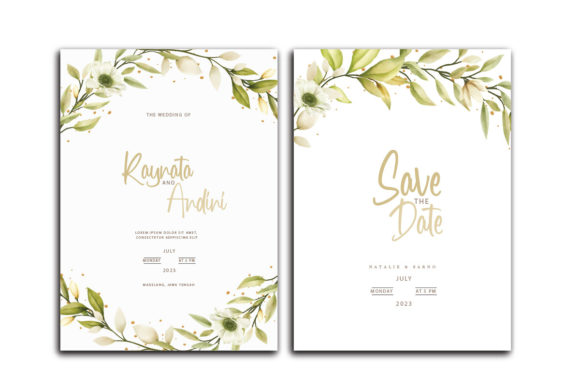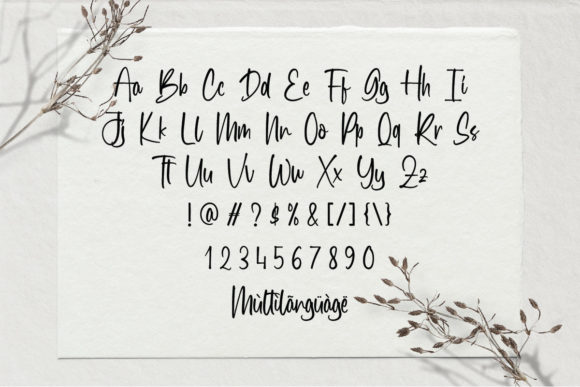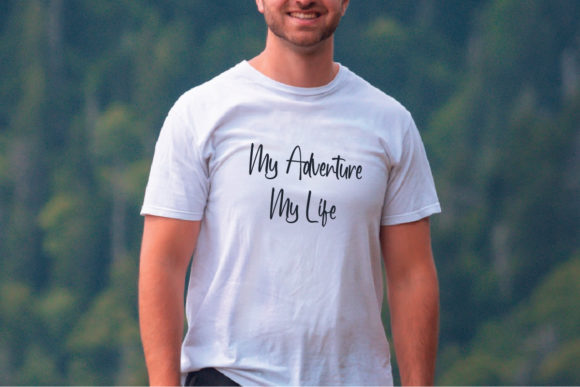
Introduction to Hello Blushing Font
Hello Blushing Font is a stunning handwritten font with stylish characters.
This font is crafted carefully in every single scratch, created to look as close to a flawless handwritten script as possible so that it can create the perfect combination on each glyph This awesome script is for anyone who needs elegance and style in their designs.